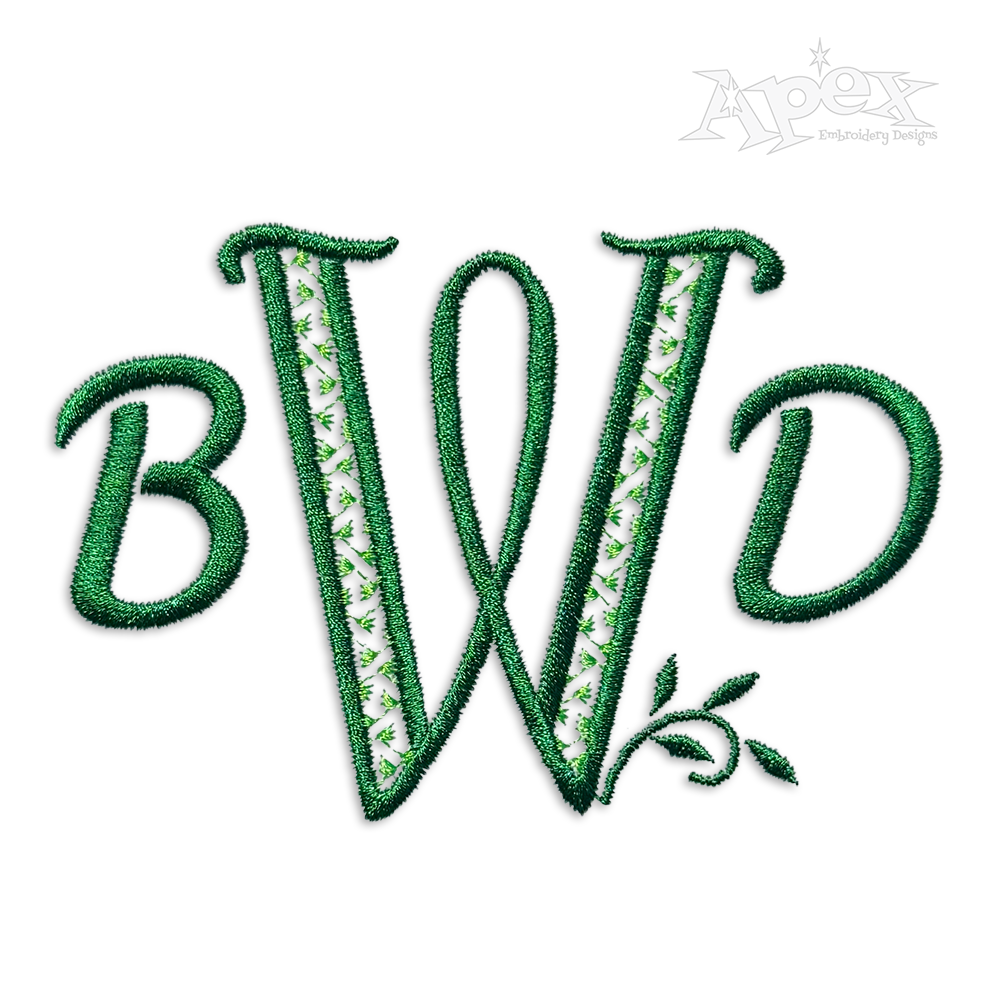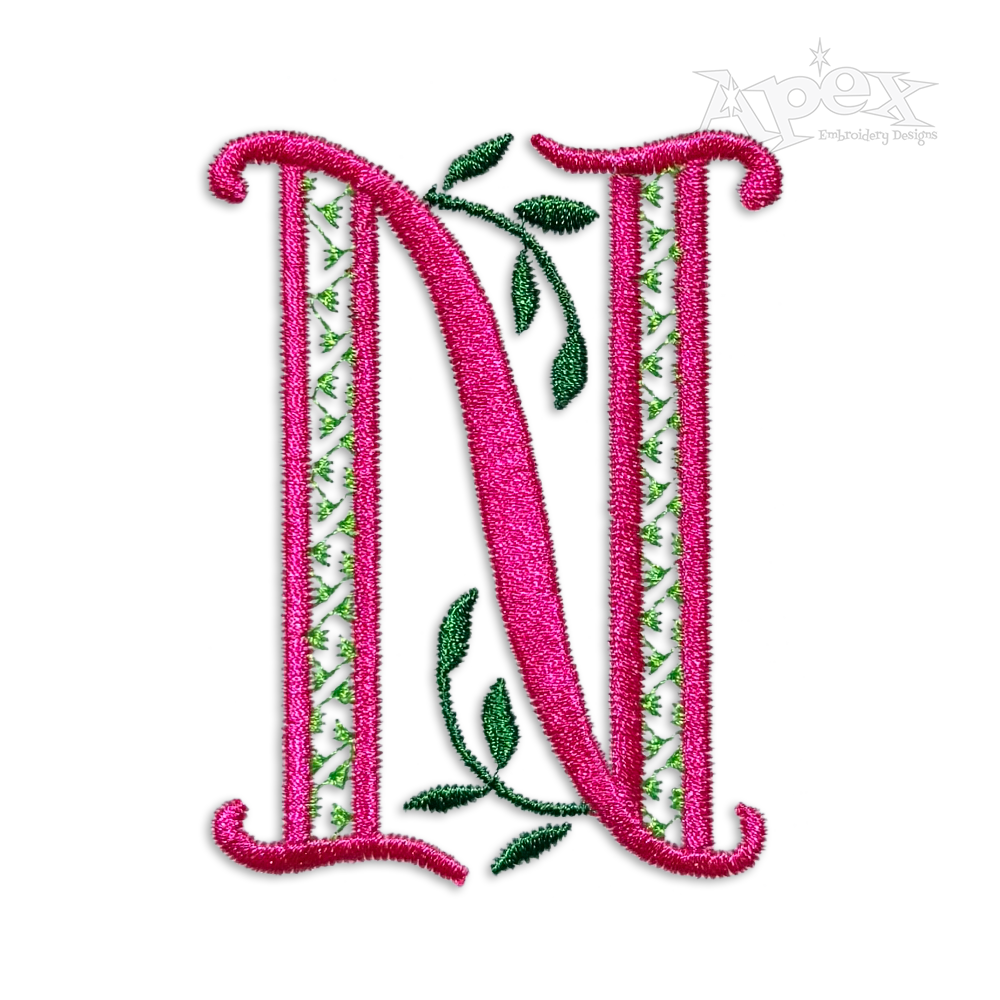
Palm Tree Embroidery Font
Inspired by sun-drenched afternoons along the coast and the graceful sway of tropical palms against clear blue skies, the Palm Tree Embroidery Font captures relaxed luxury in every stitch. As digitizers, our goal was to marry the effortless charm of coastal retreats with the crisp, immaculate execution of a bespoke satin stitch alphabet. Whether framing names for tropical getaways or adorning coastal living essentials, each letter blends organic botanic flair with polished typography, bringing an instant touch of paradise to needle and thread.
Project Ideas for Palm Tree Embroidery Font
- Linen Cocktail Napkins: Add playful refinement to bar carts, pool cabanas, and seaside dinner parties.
- Canvas Beach Totes & Straw Bags: Personalize warm-weather carryalls with sun-kissed family initials or destination names.
- Bespoke Resort Wear: Elevate breezy linen camp shirts, sun hats, and matching poolside loungewear with custom monogramming.
- Bridal & Vacation Robes: Stitch coordinated monograms for destination bachelorettes, tropical honeymoons, and bridal parties.
- Heirloom Coastal Bedding: Accentuate guest bedroom shams, hemstitched sheets, and woven throw blankets with breezy, tropical charm.
- Corner Diagonal: Angle a single initial or three-letter monogram 45 degrees into the corner of hemstitched napkins or dinner placemats for quintessential coastal hospitality.
- Left Chest & Pocket: Place the 1.0" or 1.5" size centered directly over the breast pocket or 7 to 8 inches down from the shoulder seam on linen shirts and resort polos.
- Center Panel Display: Center the 2.0" letters boldly across the face of beach bags, decorative pillow covers, or the center band of plush cabana towels.
- Cuff & Collar Accents: Utilize the 1.0" size along a shirt cuff or sleeve edge for an understated, tailor-made designer signature.
Palm Tree Embroidery Font Craft & Letterform Details
Digitizing the Palm Tree Embroidery Font required finding the sweet spot between botanical whimsy and structural clarity. Rather than simply overlaying leafy clip art onto rigid letterforms, each character is sculpted with custom pull compensation and angled satin paths that mimic the organic drape of palm fronds. The letter stems and trunks curve with gentle rhythm, engineered with precise underlay and calculated stitch densities to avoid fabric puckering while yielding a rich, light-catching sheen. Fronds taper to smooth, snag-free tips that hold their definition beautifully even at the petite 1-inch scale. The result is a stitch-out that feels sun-drenched, fluid, and tailor-made for memorable summer stitching.